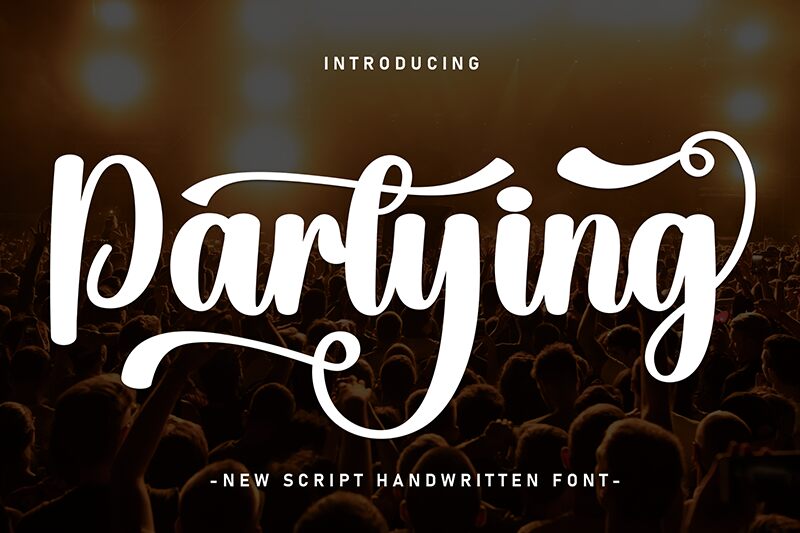
Partying
Partying font by Scratchones captures a retro-inspired, expressive style with its smooth flow and lively atmosphere. This brush font exudes casual elegance, making it a perfect choice for modern applications that require a touch of nostalgia and classic beauty.
This free brush font’s lively appearance finds easy application in branding, packaging, posters, invitations, apparel design, greeting cards, social media graphics, website headers, book covers, and advertising materials.